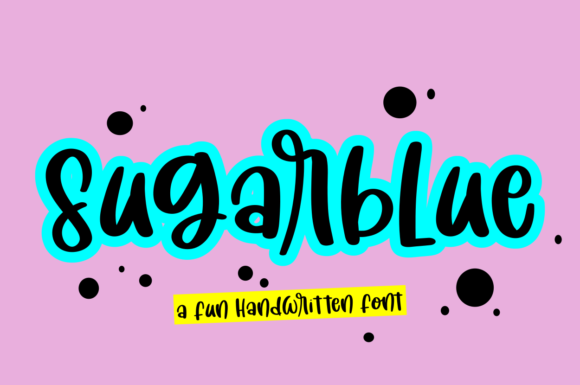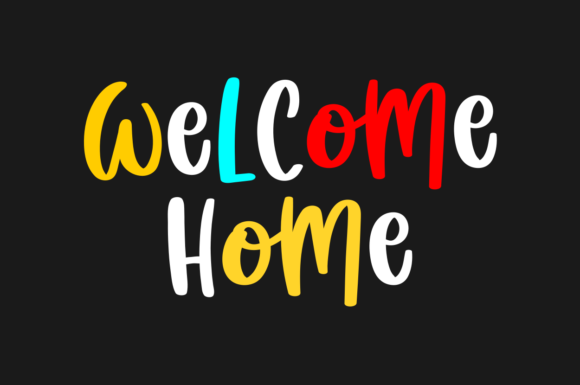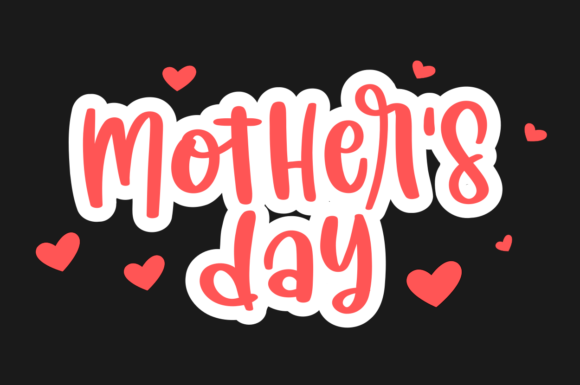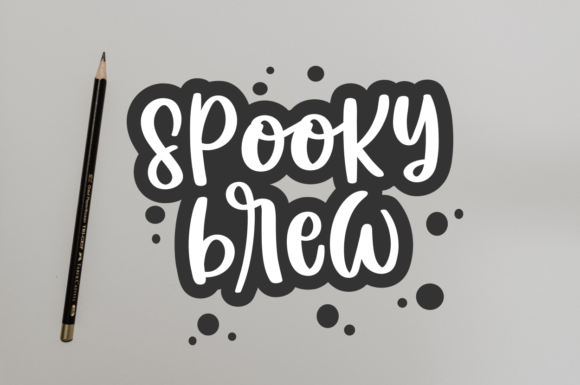
Sugar Blue Font
Sugar Blue is a cool and friendly display font. Whimsical and a bit quirky, this font will brighten up each of your designs. Add it confidently to your projects, and you will love the results.